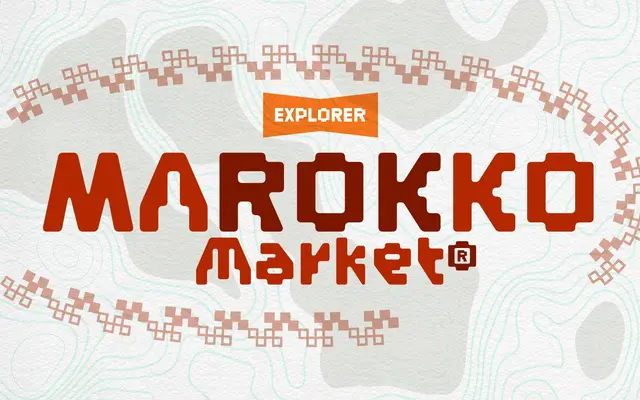
BD Gravel
Type Different · 2025
A geometric sans built around an outdoor and cycling theme, available in Edge, Round and Rounder variants with a variable font axis controlling corner rounding.
Released in 2025, the family comes in three static styles — Edge, Round and Rounder — plus variable font versions that let the degree of corner rounding shift along a continuous axis. A wide set of stylistic alternates adds flexibility, and Latin Extended coverage spans 26 European languages. Suited to branding and editorial work in sport, travel and adventure contexts.
A geometric sans-serif with rounded and sharp-edged variants, designed with sport and outdoor themes in mind. The variable axis controlling corner rounding places it firmly in the geometric sans tradition with display-oriented character.